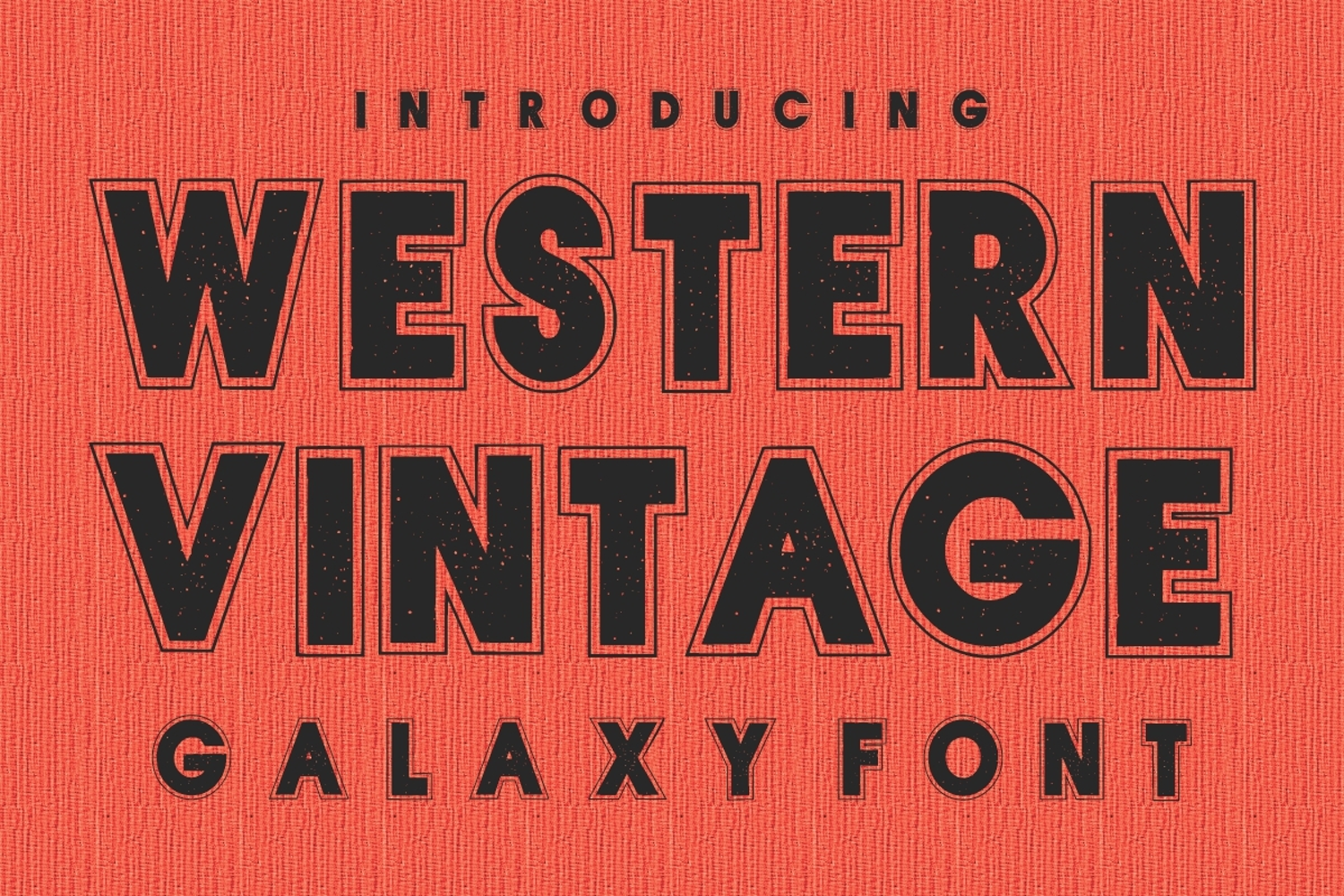
Western Vintage
Western Vintage is a Grunge, Collage, Varsity modern and bold display font. It is suitable for any winter and holiday branding project, product packaging, invitation, quote, t-shirt, label, poster, text effect, label, and logo that you wish to develop.